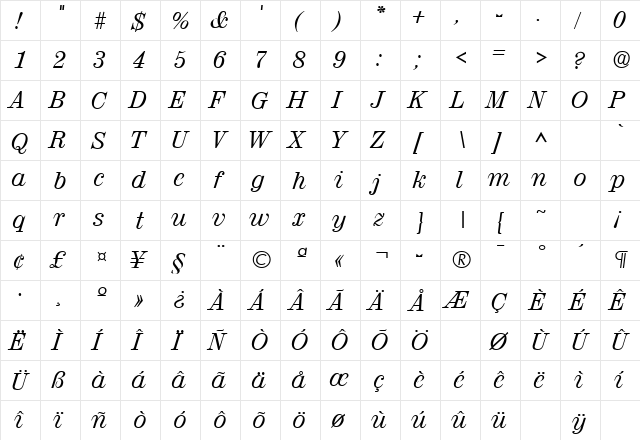
Valencia Italic
Valencia Italic Font Preview
Valencia Italic
Design Context for Valencia Typeface
Valencia is a composed and adaptable typeface that performs quietly and consistently across a wide range of design contexts. The slanted form adds forward momentum and visual energy.
Pro Tip: Try Valencia for annotation and caption copy alongside an upright companion — the contrast in angle creates a dynamic but ordered typographic system.